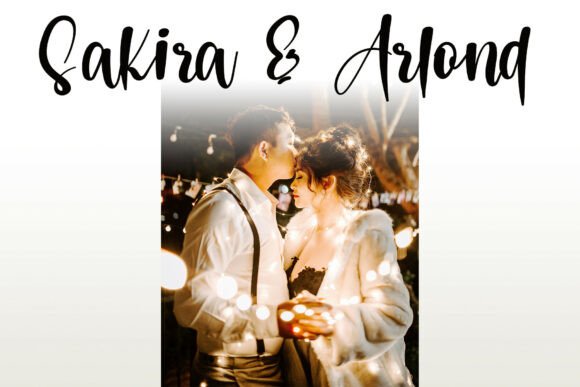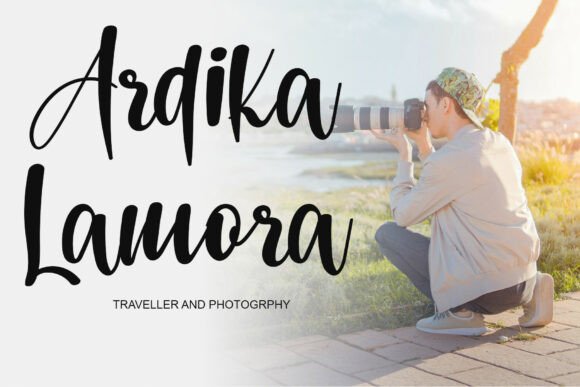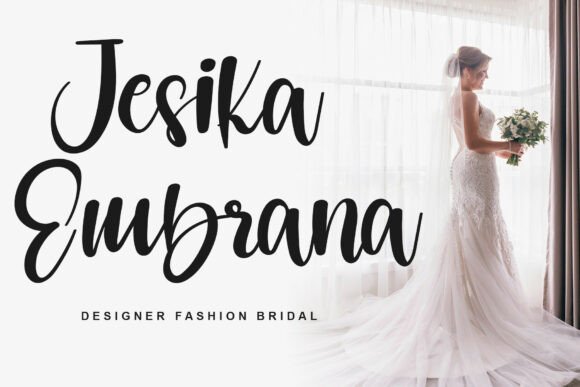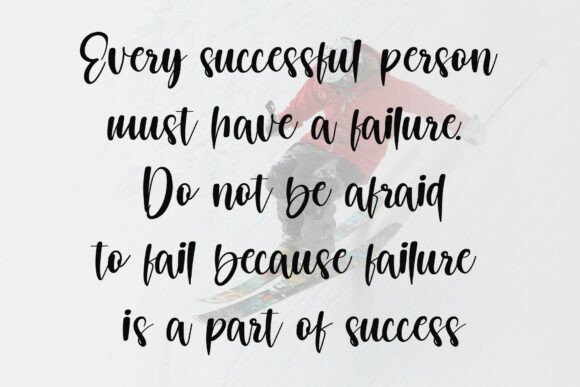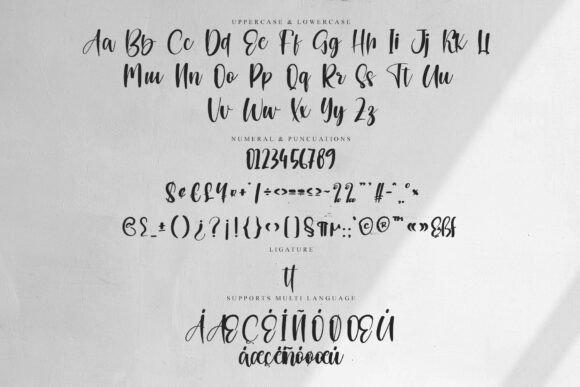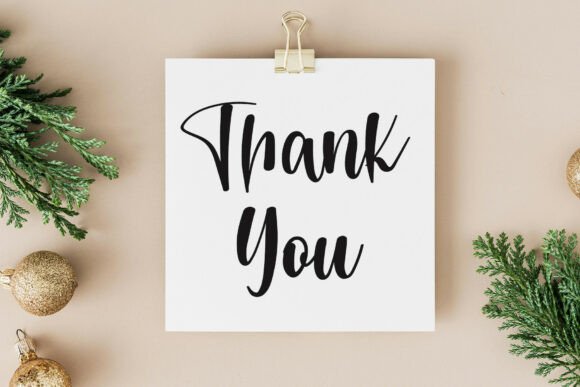
Introducing Central Thick Font: Elevate Your Designs with Elegance and Playfulness
In the world of typography, fonts play a crucial role in conveying the tone and personality of a brand, product, or message. For designers and crafters seeking a stylish and versatile font, Central Thick Font is an excellent choice. This beautiful handwritten script font is designed to capture the essence of elegance and playfulness, making it perfect for a wide range of creative projects.
The Unique Charm of Central Thick Font
Central Thick Font boasts flowing curves and a natural rhythm, which gives it a personal and charming touch. The font’s graceful design brings warmth, sophistication, and creativity to any project, making it an ideal choice for designers and crafters looking to add a unique flair to their work. Whether you’re creating invitations, branding materials, or social media content, Central Thick Font is sure to make a lasting impression.
Key Features of Central Thick Font
- Elegant Handwritten Script: Central Thick Font features a stylish handwritten script that exudes elegance and sophistication.
- Flowing Curves: The font’s flowing curves and natural rhythm give it a personal and charming touch.
- Versatile: Central Thick Font is perfect for a wide range of creative projects, including invitations, branding, social media, and more.
- Easy to Read: The font’s clear and legible design ensures that your message is conveyed effectively.
Uses of Central Thick Font
Central Thick Font is a versatile font that can be used in various creative projects, including:
- Invitations: Add a touch of elegance and sophistication to your wedding invitations, birthday party invites, or other special occasion announcements.
- Branding: Use Central Thick Font to create a unique and memorable brand identity for your business or product.
- Social Media: Elevate your social media content with Central Thick Font, making your posts and stories more engaging and visually appealing.
- Stationery: Add a personal touch to your stationery, including greeting cards, thank-you cards, and letters.
Why Choose Central Thick Font?
With so many fonts available, why choose Central Thick Font? Here are a few reasons:
- Unique Design: Central Thick Font features a unique and stylish design that sets it apart from other fonts.
- Ease of Use: The font is easy to read and use, making it perfect for a wide range of creative projects.
Central Thick Font is a beautiful and versatile font that can elevate your designs and add a touch of elegance and playfulness to your creative projects. With its unique design, flowing curves, and natural rhythm, it’s perfect for designers and crafters looking to make a lasting impression. Whether you’re creating invitations, branding materials, or social media content, Central Thick Font is an excellent choice.